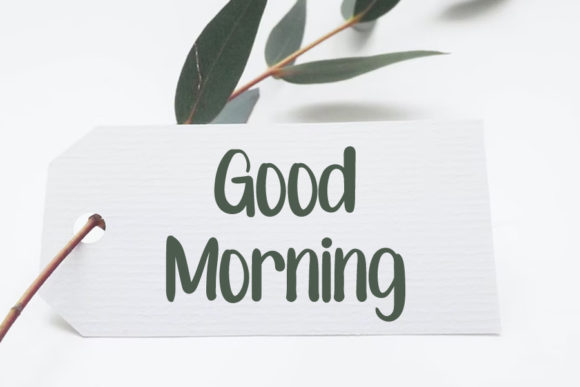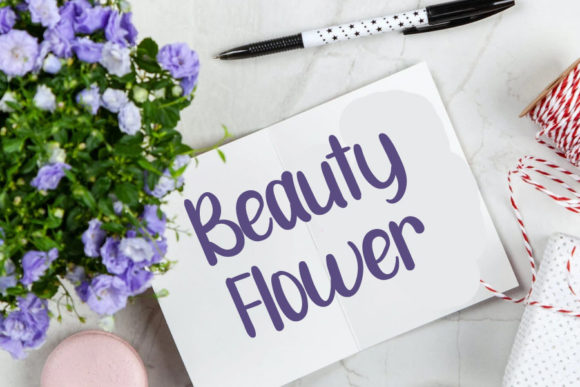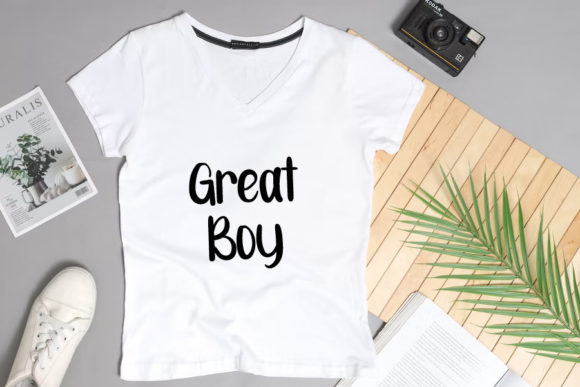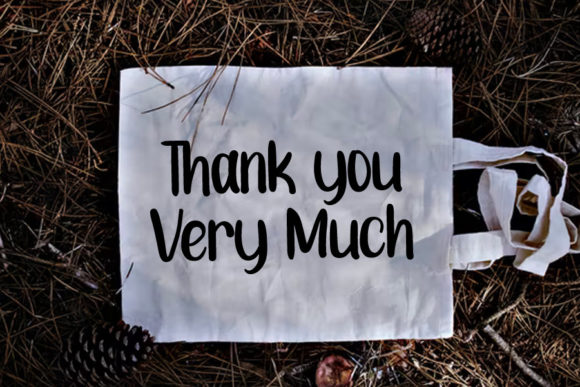
Introducing Handmade Together Font: Elevate Your Creations with Chic and Stylish Handwritten Style
Are you a designer, crafty DIY enthusiast, or a creative entrepreneur looking for a font that can add a personal touch to your projects? Look no further than the Handmade Together Font. This beautiful, handwritten font is designed to bring a touch of elegance and sophistication to any creation, making it an incredible asset to your font library.
What Makes Handmade Together Font So Special?
Handmade Together Font is a chic and stylish handwritten font that stands out from the crowd. Its unique, flowing script is perfect for a wide range of projects, from wedding invitations and party decor to branding and advertising materials. The font’s versatility is one of its most significant advantages, allowing you to use it for various applications, including:
• Logos and branding materials
• Party decor and event materials
• Product packaging and labels
• Advertising and marketing materials
Key Features of Handmade Together Font
So, what makes Handmade Together Font so special? Here are some of its key features:
• Unique and stylish design: Handmade Together Font boasts a distinctive, handwritten style that will add a personal touch to your creations.
• High-quality and legible: The font is designed to be clear and easy to read, making it perfect for both digital and print applications.
• Versatile and adaptable: Use it for a wide range of projects, from formal to informal, and for various industries and niches.
• Easily customizable: The font is designed to be easily customized, allowing you to adjust the style to suit your needs.
Benefits of Using Handmade Together Font
By incorporating Handmade Together Font into your design projects, you’ll enjoy numerous benefits, including:
• Instant recognition: The font’s unique style will help your brand or project stand out and be instantly recognizable.
• Emotional connection: The handmade, personal feel of the font will help create an emotional connection with your audience.
• Professional look: The font’s high-quality design will give your projects a professional, polished look.
• Time-saving: With Handmade Together Font, you’ll save time searching for the perfect font, allowing you to focus on other creative aspects of your project.
Who Can Benefit from Handmade Together Font?
Handmade Together Font is perfect for:
• Graphic designers: Looking for a unique and stylish font to add to their library.
• Crafty DIY enthusiasts: Creating handmade products, such as jewelry, candles, or soap, and looking for a font to use on labels and packaging.
• Small business owners: Seeking a professional, yet personal font for their branding and marketing materials.
• Stationery and paper crafters: Creating handmade cards, invitations, and other paper crafts.
In conclusion, Handmade Together Font is a versatile and stylish handwritten font that can elevate any creation. Its unique design, high-quality, and legibility make it perfect for a wide range of projects, from formal to informal. Whether you’re a designer, crafty DIY enthusiast, or small business owner, this font is an incredible asset to your font library. So why wait? Get your hands on Handmade Together Font today and start creating stunning, professional-looking projects that will leave a lasting impression on your audience.